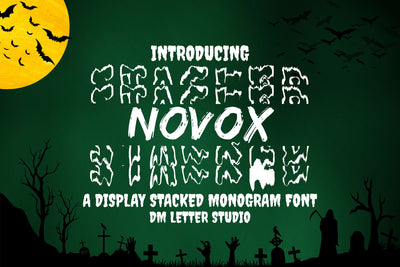
Novox Stacked Monogram
Novox Stacked Monogram – Edgy & Urban Drip-Inspired Monogram Font
Novox Stacked Monogram is a bold and stylized display font designed with a vertical stack orientation and gritty drip aesthetics. Each letter stands strong with a condensed, monogram-friendly silhouette while still embracing the melted, irregular character of the original Novox style. It's ideal for striking logos, clothing tags, extreme sports gear, band merch, and more.
Stacked Monogram Design: Crafted specifically for monogram layouts with vertical symmetry and impactful alignment.
Urban & Edgy Look: Combines street-art inspiration with a melted, goo-like texture for a rebellious tone.
Unique Drip Aesthetic: Gives your monograms a bold, raw identity—perfect for horror themes or alternative branding.
Versatile Display Use: Excellent for initials, logos, apparel patches, and creative branding.
Full Character Set: Includes uppercase letters optimized for monogramming, plus symbols and punctuation.